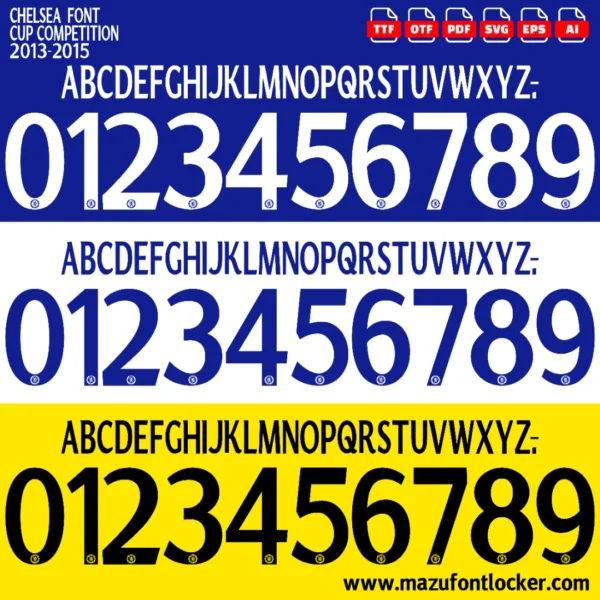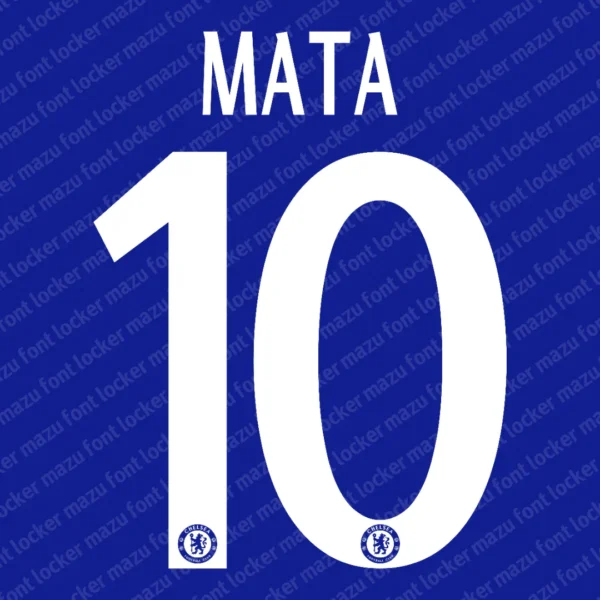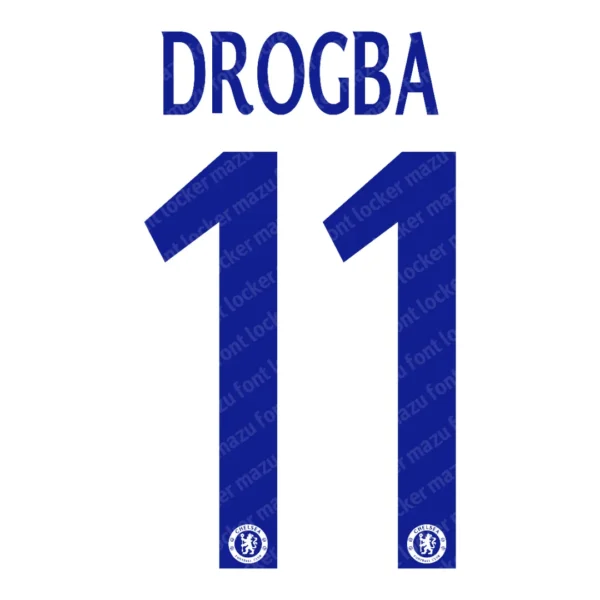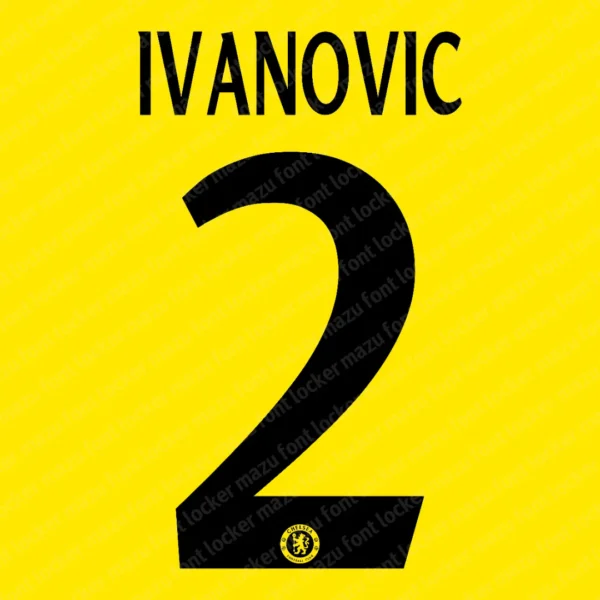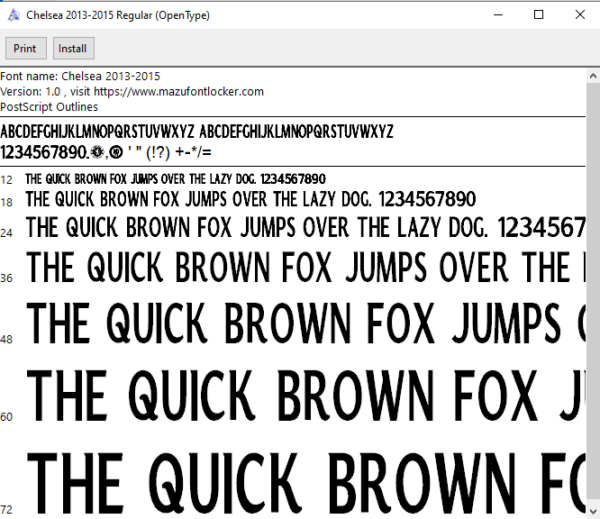
Chelsea 2013-2015 Font Vector – Stunning Blues Legacy Typeface
This premium font captures the bold, iconic, championship-winning, and battle-hardened lettering that embodies the relentless Blues identity — delivering Stamford Bridge passion, tactical brilliance, defensive steel, relentless determination, world-class professionalism, and the legendary winning mentality that propelled Chelsea to domestic glory and established them as one of Europe’s most formidable football powerhouses.
Chelsea 2013-2015 Font Vector – Authentic Blues Typeface
The Chelsea 2013-2015 Font Vector is a premium typeface that faithfully recreates the official match lettering worn by Chelsea FC during the memorable 2013-2015 seasons. This high-quality vector font kit captures the bold, clean, and professional typography that became synonymous with the Blues during one of the club’s most successful modern eras under José Mourinho.
Designed for football designers, jersey collectors, and passionate Chelsea supporters, the Chelsea 2013-2015 Font Vector delivers exceptional authenticity for creating realistic jersey mockups, custom fan apparel, football graphics, social media content, and Premier League-inspired projects. The font perfectly complements Chelsea’s iconic royal blue home kit, recognized by football fans across the globe.
This font kit offers outstanding vector precision and authentic club styling. Every letter and number has been carefully recreated to match the official shirt printing used throughout Chelsea’s 2013-2015 campaigns in domestic and European competitions. Whether you’re designing professional kit concepts or celebrating the glory of the Blues, this font delivers the unmistakable atmosphere of Stamford Bridge.
The Chelsea 2013-2015 Font Vector features bold geometric letterforms with clean edges and balanced proportions. Inspired by the official match typography, every character combines modern athletic styling with Chelsea’s historic football identity, ensuring outstanding readability across every design application.
The numbers feature smooth curves, sharp detailing, and consistent spacing for an authentic professional match appearance. Built entirely as scalable vectors, every numeral remains crisp and accurate for digital artwork, jersey customization, and high-resolution printing.
- Special Chelsea logo glyph – Press the “:” (Colon mark) symbol to insert the logo
- Includes accurate club crest glyph positioning beneath player numbers.
Chelsea 2013-2015 Seasons